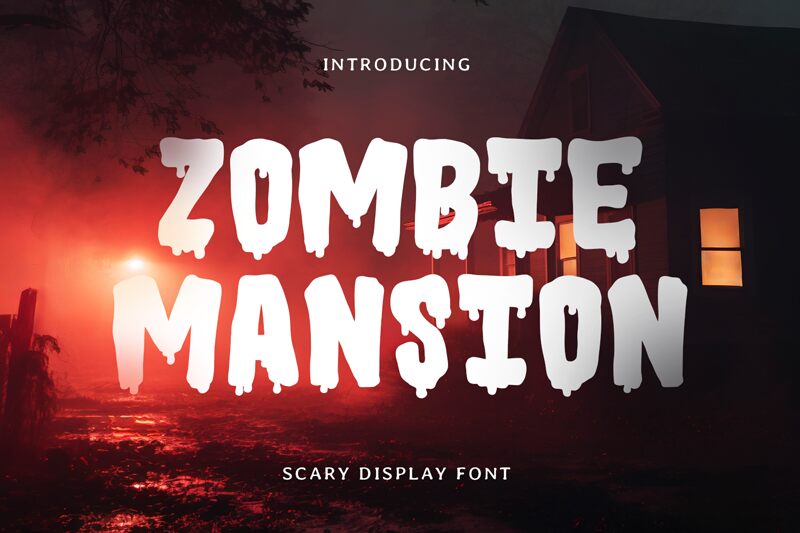
ZOMBIE MANSION
Zombie Mansion font by Mozatype is a free Halloween display font. Its letters look swollen and oozy, with drippy bottoms and ragged edges that feel hand-cut and a little gross—in the best way. The rhythm is chunky and uneven, so headlines lurch forward like a B‑movie title card, instantly setting a spooky, campy mood.
Using Zombie Mansion, your Halloween party posters, haunted house flyers, trick‑or‑treat bag labels, YouTube thumbnails, social banners, and stickers get loud, gummy impact without extra effects. This free font shines at big sizes; keep body copy in a simple sans for contrast. Add a faint green glow or grunge texture to push the slime factor even further.